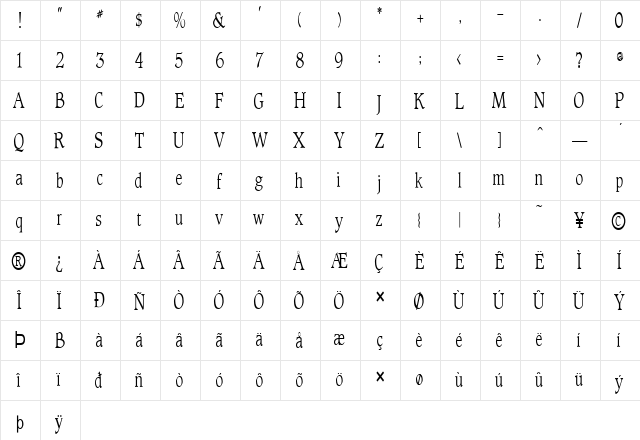
FZ ROMAN 23 COND Normal
Design Context for FZ ROMAN 23 COND Typeface
FZ ROMAN 23 COND offers clean, dependable letterforms without strong stylistic allegiance, making it a practical choice for designers who need flexibility. Its narrow stance lets it pack a punch even in space-constrained designs.